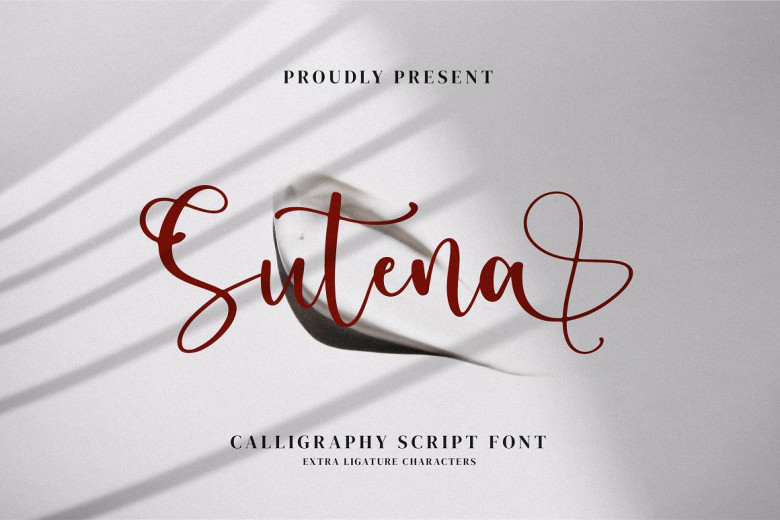
Sutena Font
Sutena is a gentle calligraphy script font. It’s fantastic for logos, branding projects, homeware designs, product packaging, mugs, quotes, posters, shopping bags, t-shirts, book covers, name cards, and invitation cards, greeting cards, labels, and photography, watermark, or special events.
Sutena Calligraphy Script Font